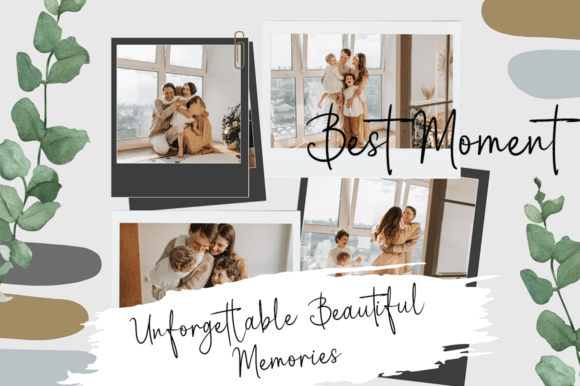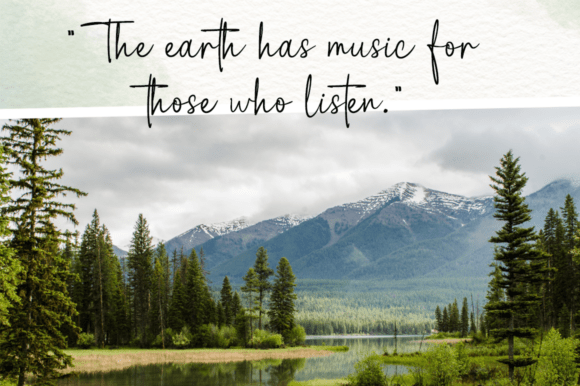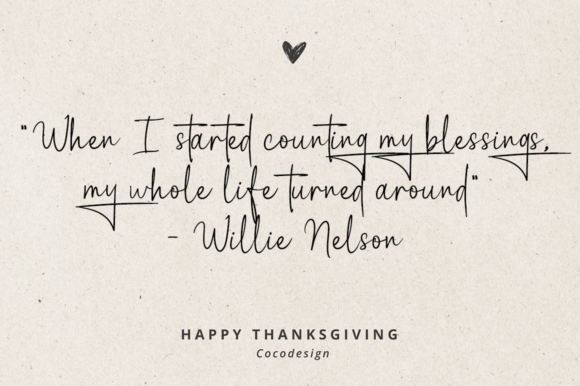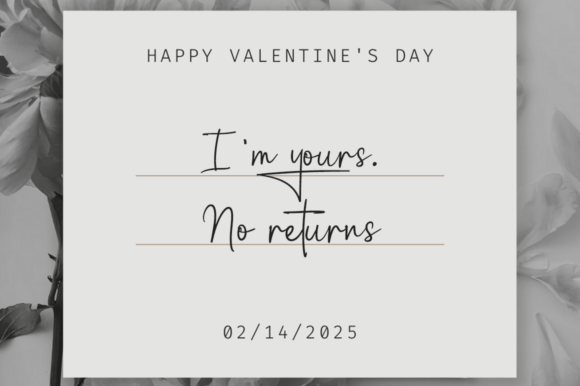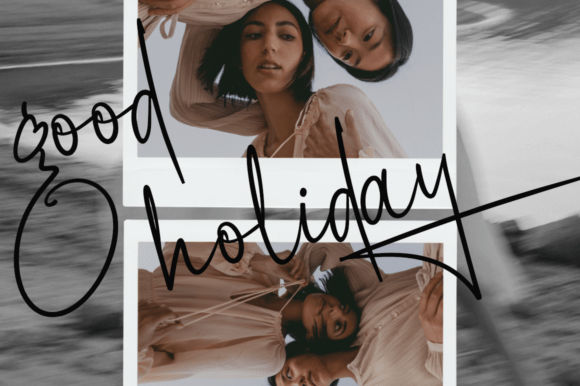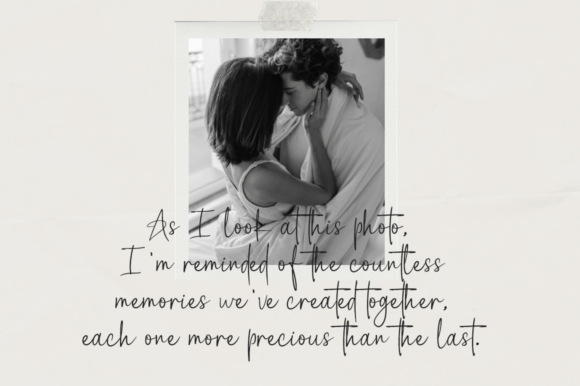
Discover the Charm of Betrayed Font: Elevate Your Designs with a Touch of Elegance
In the world of typography, fonts play a crucial role in conveying the tone and aesthetic of a design. For designers and crafters seeking a font that combines a natural, handwritten feel with elegant aesthetics, Betrayed Font is an excellent choice. This versatile font is designed to resemble everyday handwriting, offering a smooth, simple, and attractive character that can elevate various creative design projects.
The Essence of Betrayed Font
Betrayed Font is crafted to bring a sense of authenticity and warmth to designs. Its natural, handwritten appearance makes it perfect for projects that require a personal touch. The font’s simplicity and elegance are balanced harmoniously, making it suitable for a wide range of applications, from formal invitations to product packaging and branding elements.
Key Features of Betrayed Font
- Natural Handwritten Feel: Betrayed Font is designed to mimic everyday handwriting, providing a genuine and relatable aesthetic.
- Elegant Aesthetics: The font’s smooth and simple character adds a touch of elegance, making it perfect for designs that require sophistication.
- Versatility: Betrayed Font can be used in various design projects, including invitations, posters, product packaging, and branding elements.
- Attractive Character: The font’s attractive character makes it easy to read and visually appealing, ensuring that your designs stand out.
Applications of Betrayed Font
Betrayed Font’s versatility makes it an excellent choice for various design projects. Here are some of the ways you can use this font:
- Invitations: Create beautiful and elegant invitations for weddings, parties, and other special events.
- Posters: Design eye-catching posters for promotions, events, or advertisements.
- Product Packaging: Add a touch of elegance to your product packaging and make it stand out on store shelves.
- Branding Elements: Use Betrayed Font to create a consistent brand identity across various marketing materials.
Benefits of Using Betrayed Font
By choosing Betrayed Font for your design projects, you can enjoy several benefits:
- Unique Aesthetic: Betrayed Font offers a distinctive and attractive aesthetic that can set your designs apart.
- Easy to Read: The font’s clear and simple character makes it easy to read, ensuring that your message is communicated effectively.
- Time-Saving: With Betrayed Font, you can create professional-looking designs quickly and efficiently.
Tips for Using Betrayed Font
To get the most out of Betrayed Font, consider the following tips:
- Pair with Other Fonts: Experiment with pairing Betrayed Font with other fonts to create a unique and visually appealing aesthetic.
- Adjust Font Size: Adjust the font size to create visual hierarchy and emphasize important information.
- Use Color Effectively: Choose colors that complement the font and enhance the overall aesthetic of your design.
Betrayed Font is an excellent choice for designers and crafters seeking a font that combines a natural, handwritten feel with elegant aesthetics. Its versatility, attractive character, and ease of use make it perfect for various creative design projects. By incorporating Betrayed Font into your designs, you can add a touch of elegance and sophistication, elevating your work to the next level.